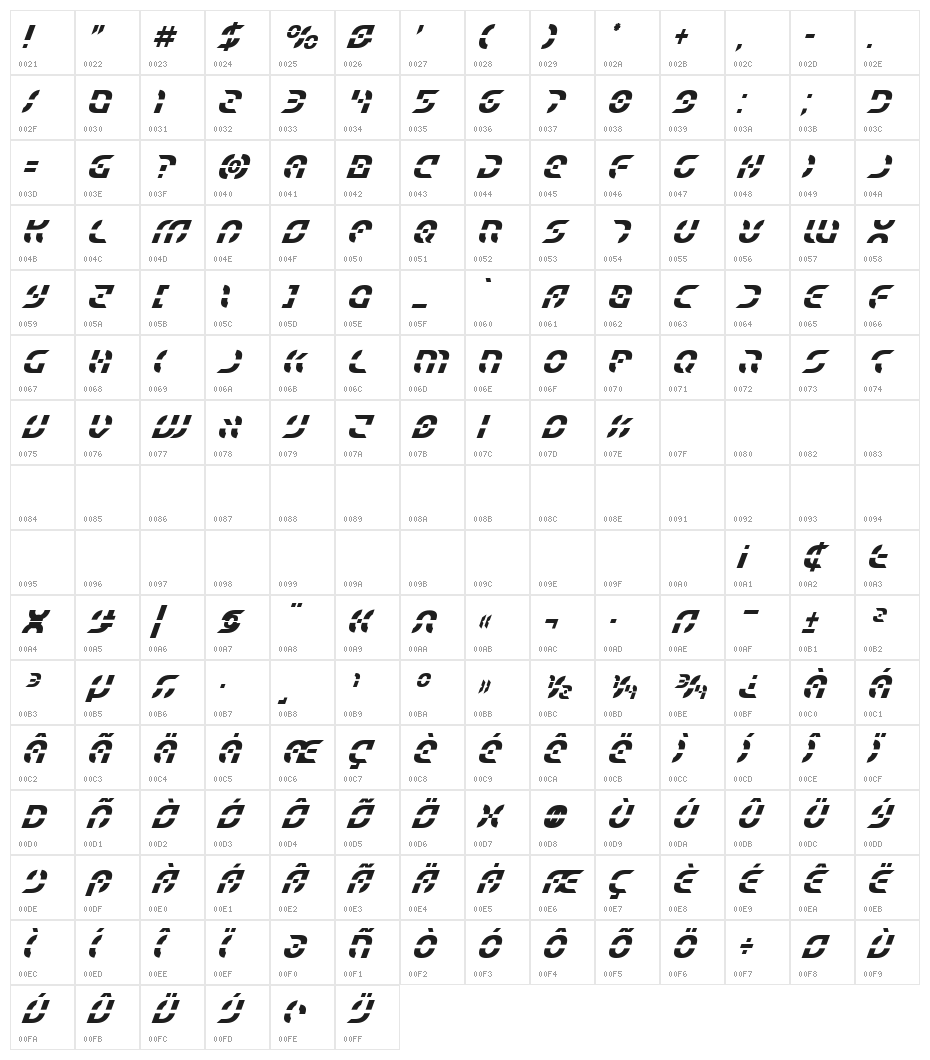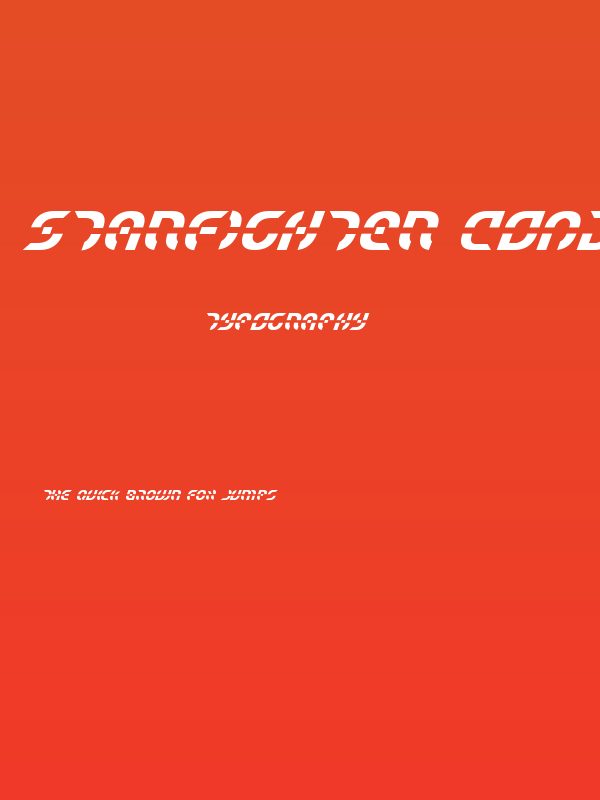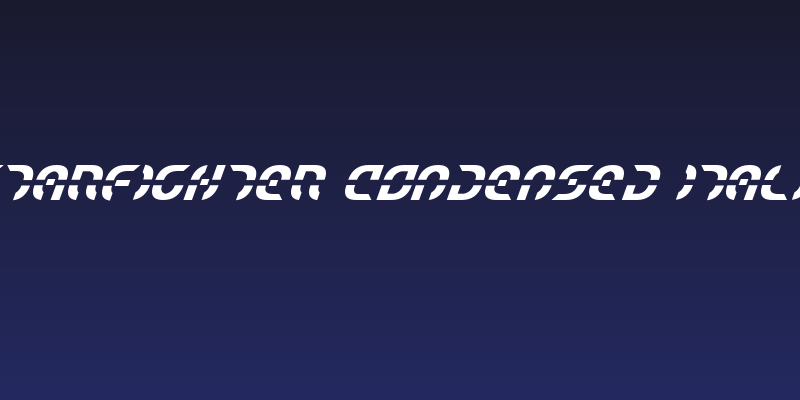
Starfighter Condensed Italic Font
Starfighter Condensed Italic Description
This font features a futuristic and dynamic design with a condensed and italicized style. The characters are bold and angular, with sharp edges and a distinct slant that gives a sense of motion and speed. The geometric shapes and cut-out sections within the letters create a unique, high-tech appearance. The font maintains a consistent weight throughout, emphasizing its boldness and making it highly legible despite its decorative elements. The spacing between characters is tight, enhancing its compact and streamlined look. This font is ideal for projects that require a modern and edgy aesthetic.
| Proposed Projects | Ideal for sci-fi themed designs, video game titles, tech branding, and futuristic posters. |